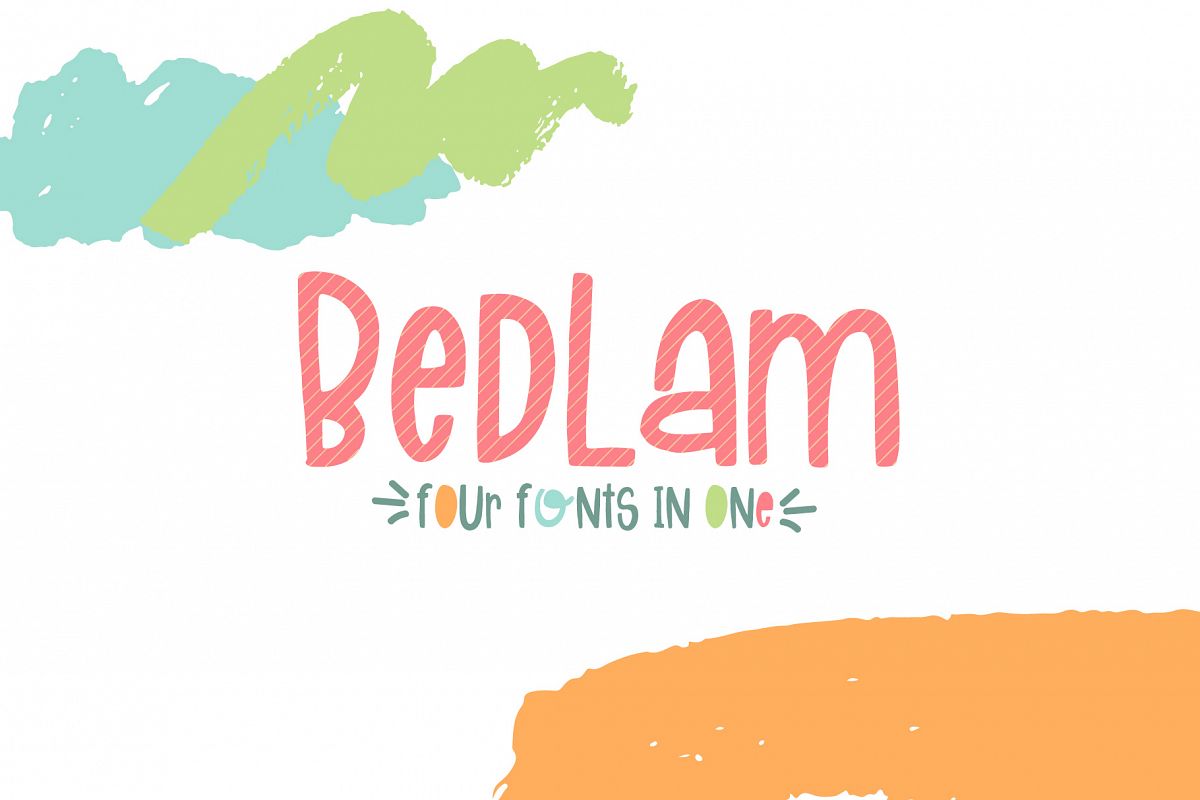
Bedlam
bed·lam /ˈbedləm/ noun
1. a scene of uproar and confusion.
Pretty much nails this font! Quirky mixed case letters, open and filled centers + a bonus hatch effect font create the newest font from OTSS
Bedlam